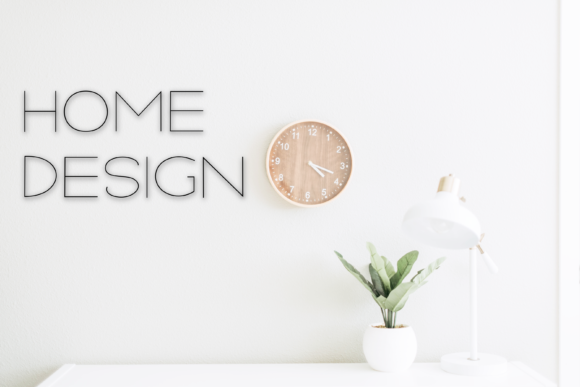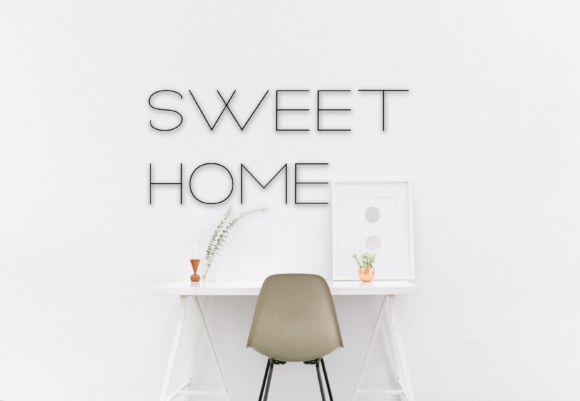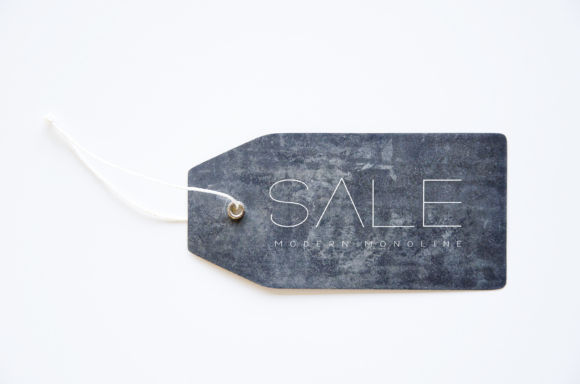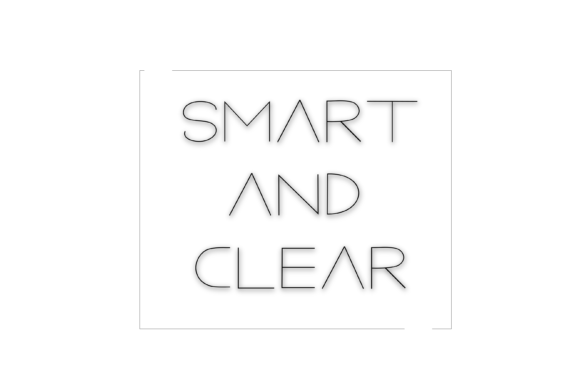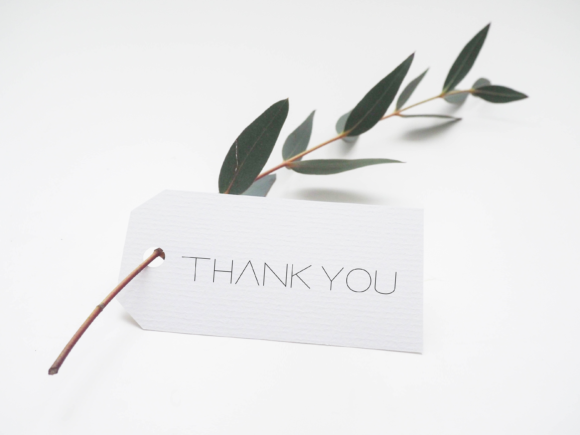
Have you ever been stuck on a design project, searching for the perfect font to bring your vision to life? You know that feeling when everything is just right, and your design starts to shine? That’s what we’re about to explore – the perfect font to elevate your projects and leave a lasting impression.
Meet the Home Minimalist Font, a sleek and modern sans serif font designed to make your designs stand out. Its thin letters and clean lines make it a versatile choice for a wide range of projects, from elegant branding to modern typography. Whether you’re a seasoned designer or just starting out, the Home Minimalist Font is an essential addition to your toolkit.
Home Minimalist Font Key Features
- Unique Characteristics:
- Simple and clean design with a minimalist aesthetic
- Wide range of language support, including Latin, Cyrillic, and Greek scripts
- OpenType features for advanced typographic control
- Font Weight: 7 weights ranging from Light to Black
- Font Style: Regular, Italic, Bold, Bold Italic
Home Minimalist Font Review
Overall, I’d say the Home Minimalist Font is a solid choice for minimalist designs. It’s clean, simple, and gets the job done. ✨ The font’s sans-serif design makes it easy to read, and the subtle curves give it a touch of warmth.
One of the things I like most about this font is its flexibility. It works well for both body text and headings, and the font sizes can be easily adjusted without losing its balance. ✨ It’s also a great choice for digital products, such as apps and websites, where a clean and simple design is essential.
- ⚠️ Limited character set: The font only includes the standard 96 characters, which may not be suitable for languages that require a wider character set.
- ⚠️ Not ideal for complex typography: While the font is great for simple designs, it may not be the best choice for more complex typography projects that require multiple font weights and styles.
In conclusion, the Home Minimalist Font is a great choice for minimalist designs, but it may not be the best fit for more complex projects or languages that require a wider character set. It’s a solid addition to any designer’s toolkit, but it’s essential to consider its limitations before using it for a specific project.
For a cohesive look, use the Home Minimalist Font consistently throughout your design.
Use it for headings, subheadings, and body text to create a clean and modern aesthetic.
Pair it with simple graphics and a limited color palette to emphasize the font’s clean lines and minimal style.
The Home Minimalist Font is ideal for:
– Modern blog or website designs
– Simple business cards or brochures
– Minimalist branding and marketing materials
– Clean and modern social media graphics
Inter is a modern sans-serif font designed for digital use. It’s highly legible, even at small font sizes, and has a clean aesthetic that makes it suitable for a wide range of applications, from body text to headings. Use Inter when you need a font that’s both modern and timeless.
Compared to Home Minimalist Font, Inter has a more geometric and streamlined appearance, making it more suitable for digital use. Inter also has a wider range of weights and italics, offering more flexibility in design.
Montserrat is a sans-serif font designed specifically for urban environments. It’s highly legible in small sizes and has a strong, geometric appearance that makes it suitable for titles, headings, and body text. Use Montserrat when you need a font that’s both modern and edgy.
Compared to Home Minimalist Font, Montserrat has a more geometric and angular appearance, making it more suitable for titles and headings. Montserrat also has a more extensive range of weights and italics, offering more flexibility in design.
Lato is a modern sans-serif font designed for digital use. It’s highly legible, even at small font sizes, and has a clean aesthetic that makes it suitable for a wide range of applications, from body text to headings. Use Lato when you need a font that’s both modern and elegant.